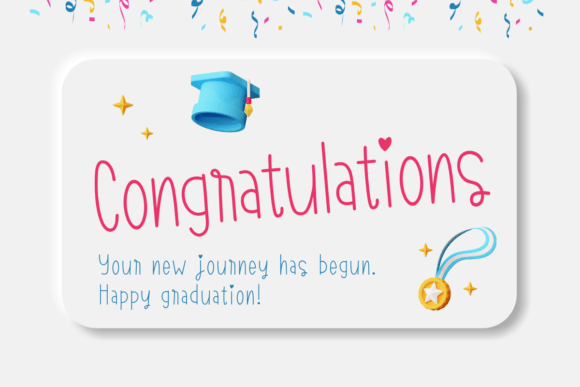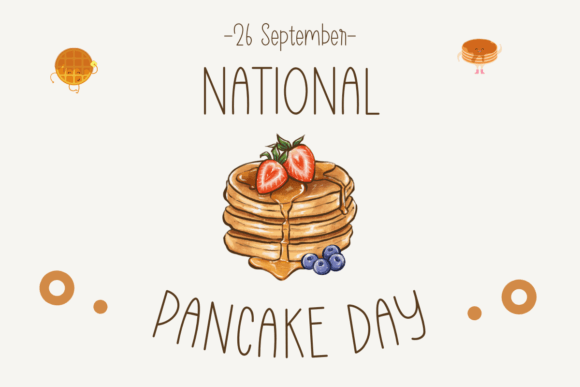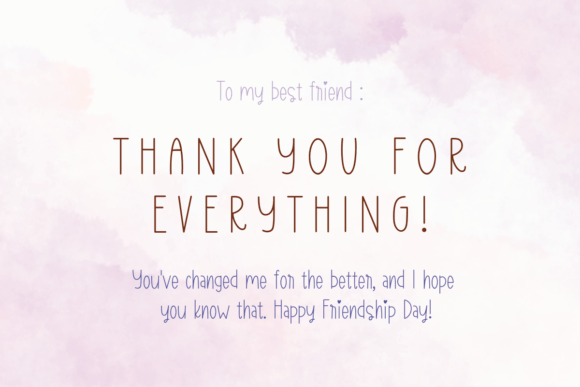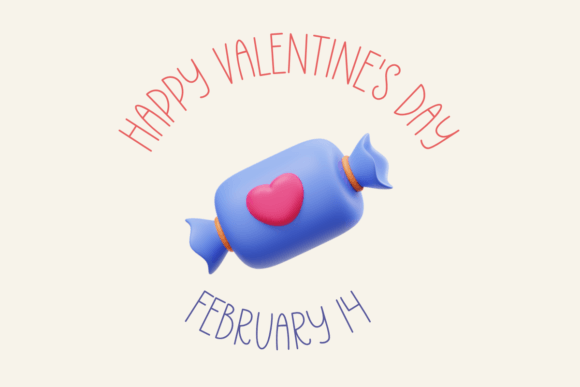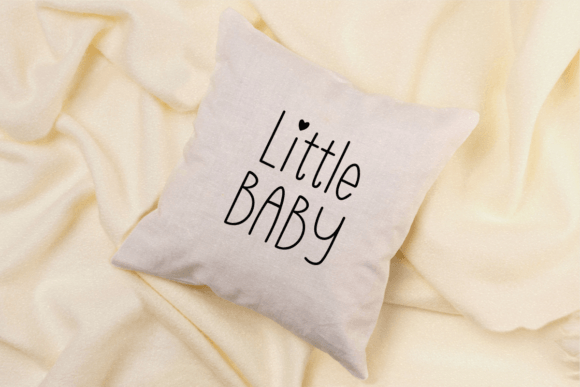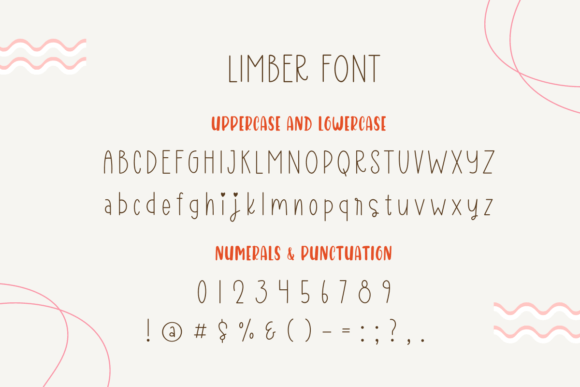
Introduction to Limber Font
Have you ever sat down with a blank page, a cup of coffee, and a spark of inspiration, only to struggle finding the perfect font to bring your creative project to life? For designers and writers alike, the right font can be the difference between a mediocre and a breathtaking design. That’s where the Limber Font comes in – a beautifully crafted, high-quality, handwritten font that’s perfect for anything from taking notes to creating greeting cards.
What sets Limber Font apart is its versatility and ease of use. With a transparent background, this font is ideal for digital designs, allowing you to layer it over other elements without any distractions. Plus, it’s available for a free download, making it an invaluable design resource for anyone looking to elevate their creative projects.
Key Features of Limber Font
- High-quality vector font, perfect for creative projects and design resources.
- Features a transparent background, ideal for designers who want to add a unique touch to their work.
- Designed with a clean and modern aesthetic, making it suitable for a wide range of creative projects.
Honest Review: Limber Font
I recently had the chance to work with the Limber Font, and I’m excited to share my honest thoughts on this design resource. As a designer, I’m always on the lookout for high-quality fonts that can elevate my creative projects.
- ✨ High-quality design: The Limber Font is well-crafted and looks great on both desktop and mobile devices.
- ✨ Transparent background: The font’s transparent background makes it easy to use on any background, giving me more flexibility in my designs.
- ⚠️ Limited character set: The Limber Font is a bit limited in terms of the characters it supports, which can be a problem for more complex design projects.
- ⚠️ Not ideal for small text: The font can be a bit difficult to read when used for small text, which is something to keep in mind when choosing a font for your design.
Overall, I’m impressed with the Limber Font and would definitely consider using it in my future design projects. Its high-quality design, free download, and transparent background make it a great resource for any designer. However, its limitations should be taken into consideration when choosing a font for your creative project.
How to Use Limber Font
The Limber Font is a high-quality, free download that can elevate any creative project. With its unique and versatile design, it’s perfect for designers and non-designers alike.
Using the Limber Font with a Transparent Background
To use the Limber Font with a transparent background, simply apply a transparent layer in your design software. This will allow you to use the font on top of any background image or color.
Tips for Getting the Most Out of the Limber Font
Here are some tips for getting the most out of the Limber Font:
- Experiment with different font sizes and colors.
- Use the font in combination with other design elements, such as images and shapes.
- Apply the font to a transparent background for a unique and creative look.
The Limber Font is perfect for a variety of creative projects, including:
- Graphic design and branding.
- Web design and development.
- Print design and advertising.
Alternatives to Limber Font
Open Sans is a high-quality, sans-serif font ideal for creative projects that require a clean and modern look. It’s available for free download and can be used with a transparent background. Open Sans is a versatile font that works well for body text and titles.
Compared to Limber Font, Open Sans has a more neutral tone and is suitable for a wider range of design projects. While Limber Font is more playful and elegant, Open Sans is more straightforward and easy to read.
Lato is a high-quality, sans-serif font designed specifically for digital media. It’s available for free download and features a transparent background. Lato is perfect for creative projects that require a modern and elegant look.